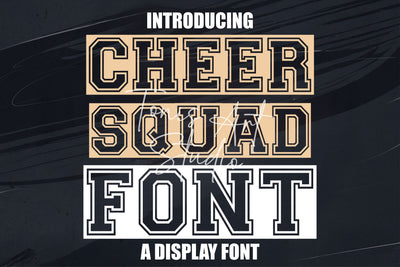
Cheer Squad Font | Athletic Varsity Sports Display Font
The Cheer Squad Font is a bold and dynamic varsity-style typeface designed for sports, cheerleading, and athletic branding. With strong outlined letters and a competitive look, this font is perfect for team logos, game day t-shirts, banners, and motivational designs.
The blocky, high-energy style makes it great for jerseys, pep rally graphics, school spirit merchandise, and sports-themed projects. Whether you're crafting custom apparel, designing for teams, or creating energetic typography for social media, this font adds a bold statement to any project.
✔ Cheer Squad Font – Bold varsity display typeface
✔ Perfect for sports branding, team shirts, and game day apparel
Perfect For:
📣 Cheerleading & Pep Rally Designs
🏆 Sports Logos & Jerseys
🎉 Game Day & Team Spirit Apparel
🏀 Athletic Team Branding
🎨 Sublimation & Cricut Projects
📢 Social Media Graphics & Posters